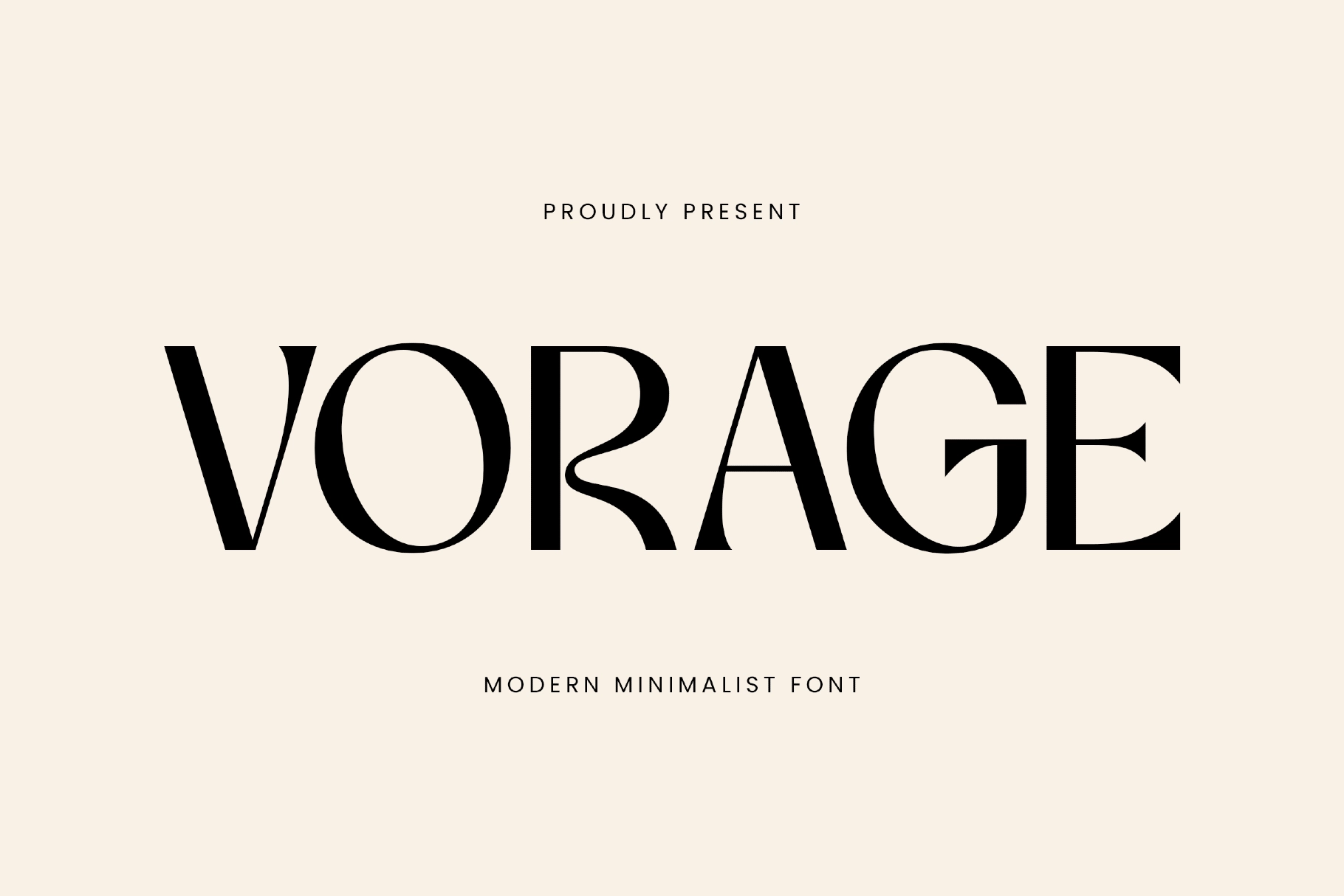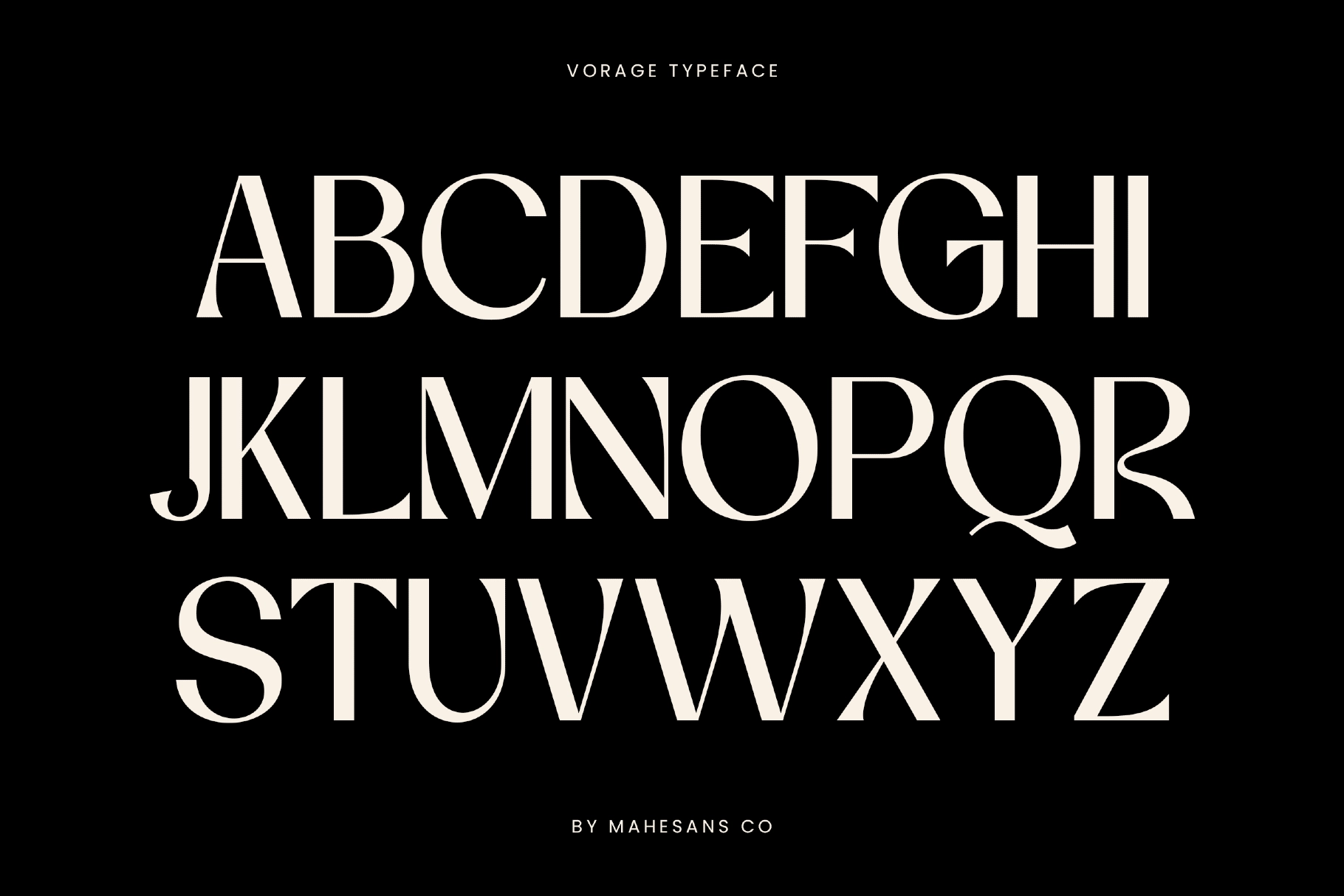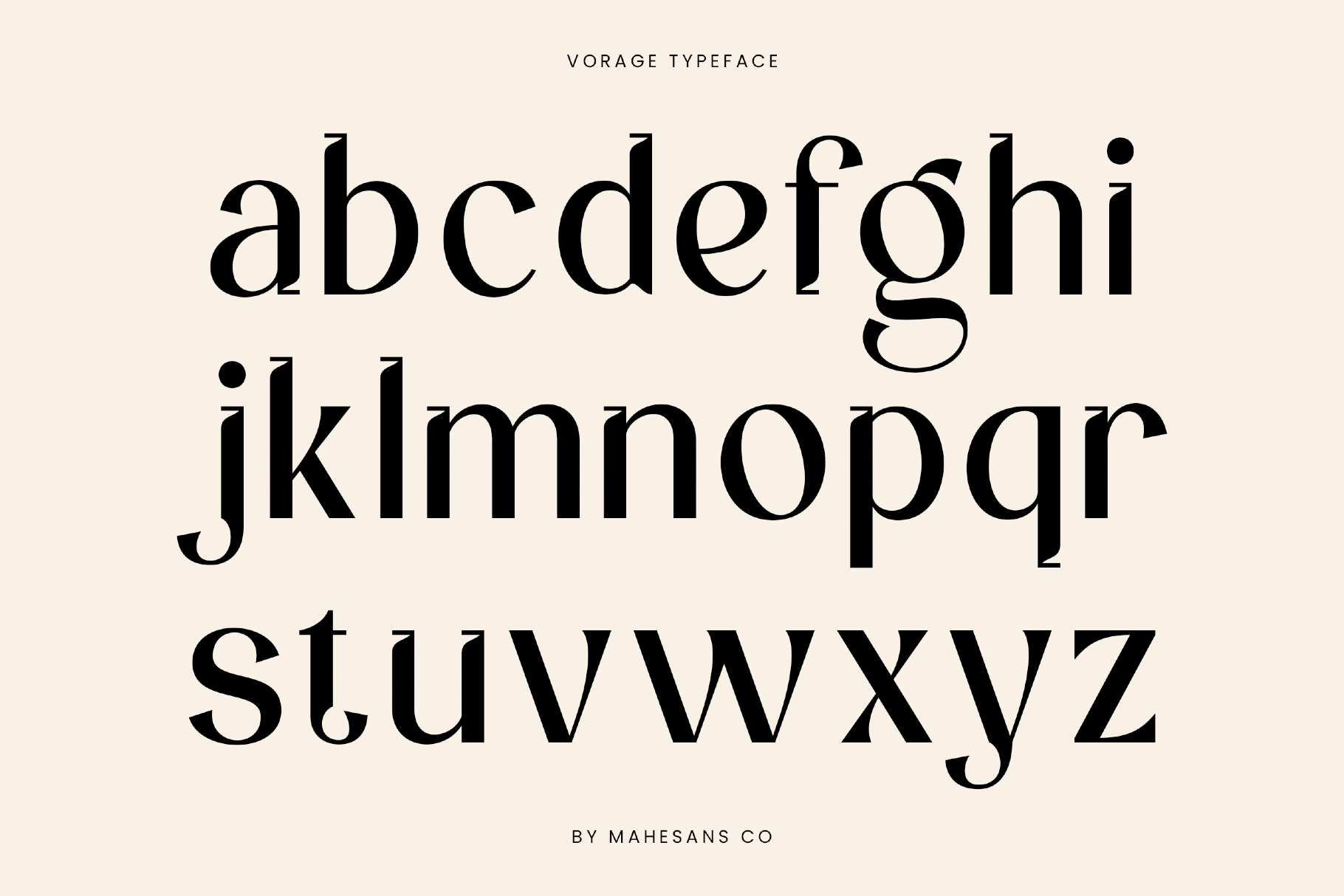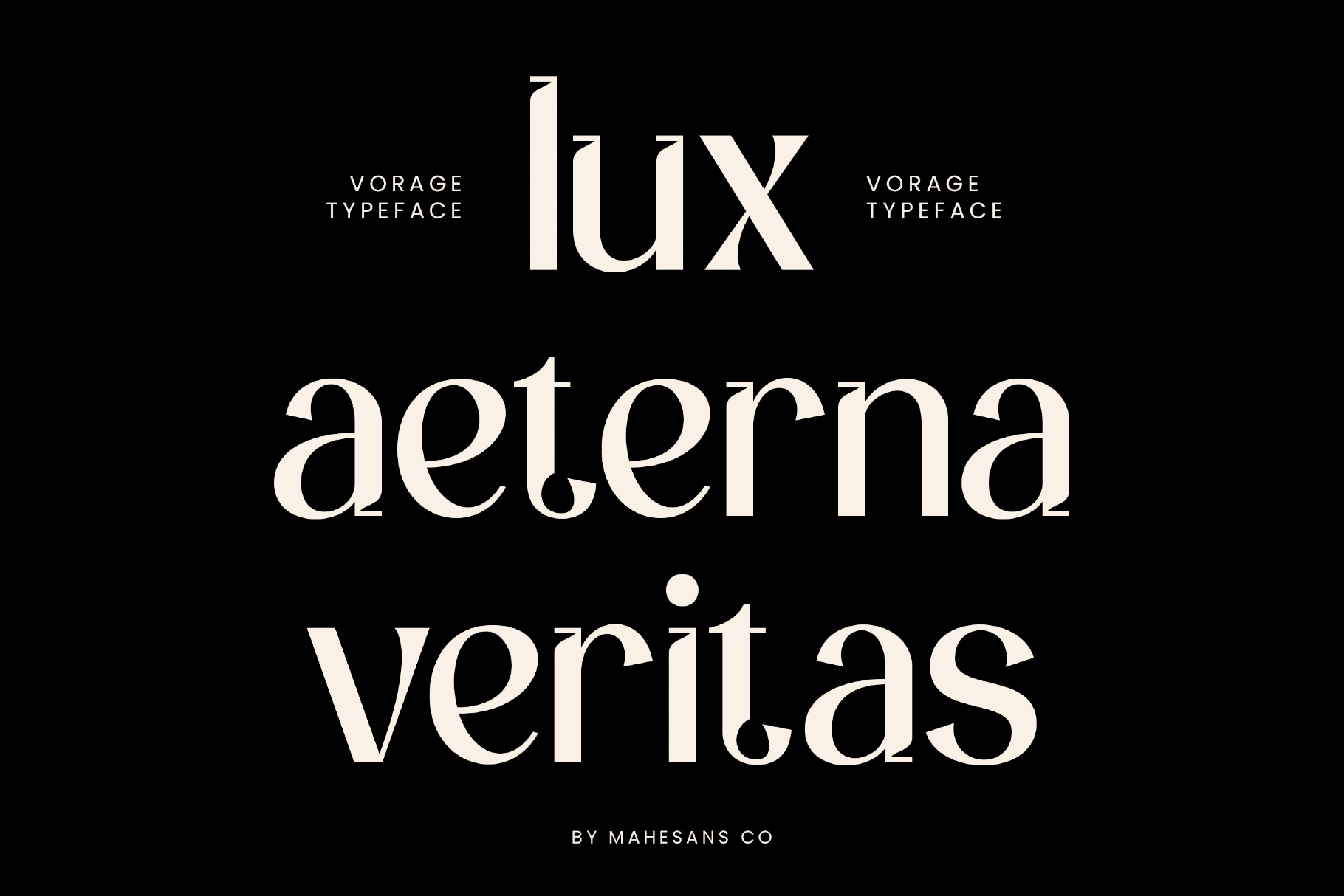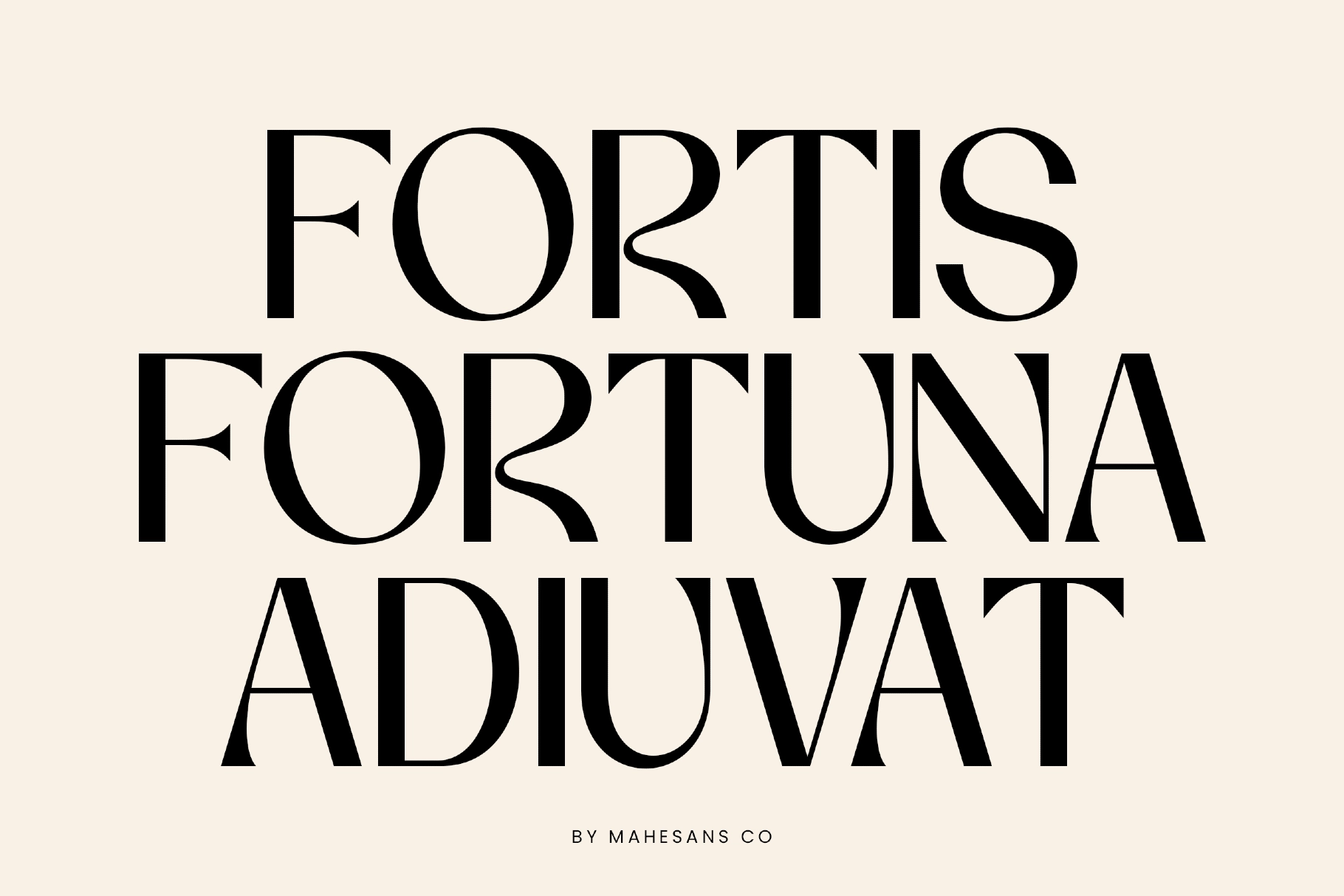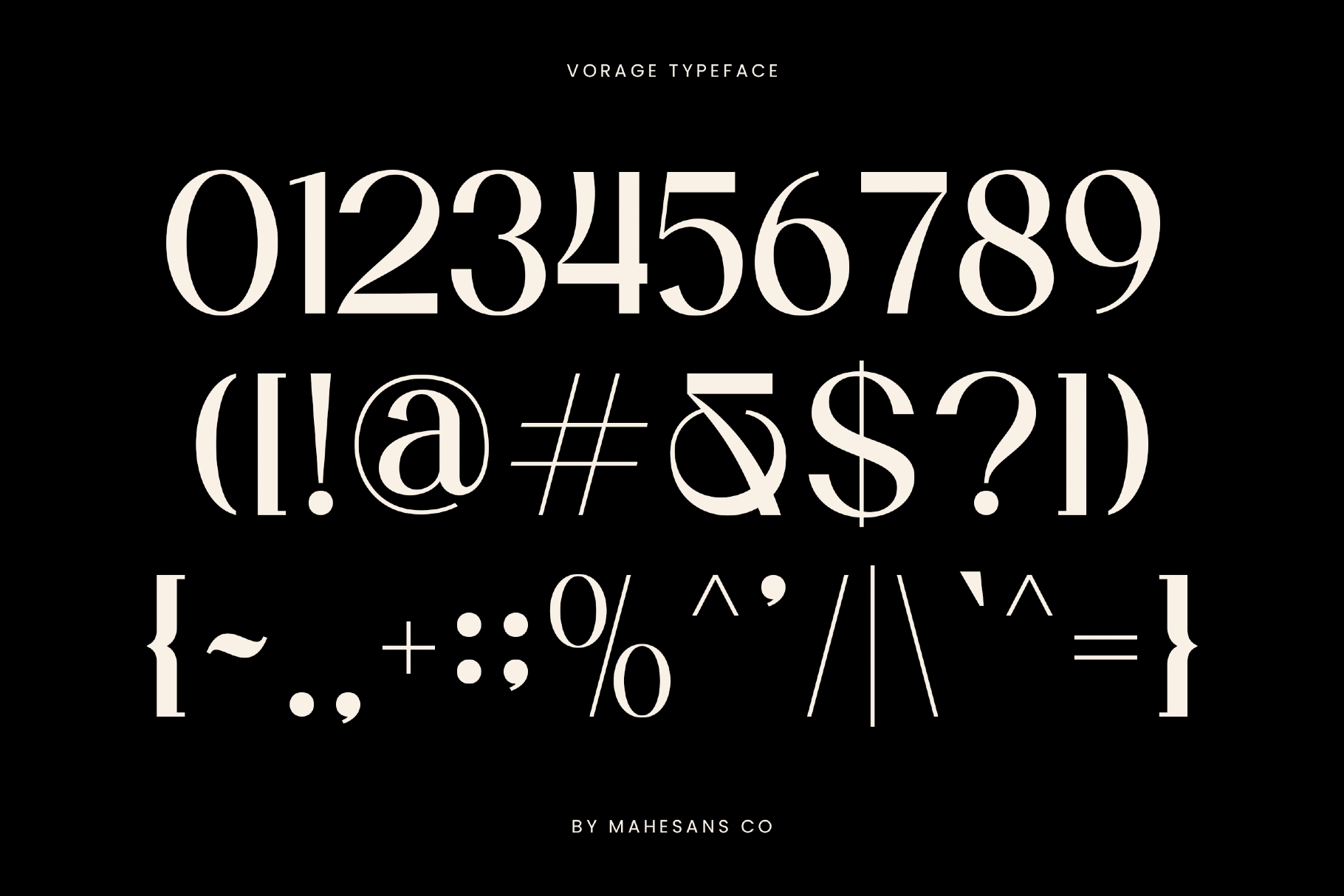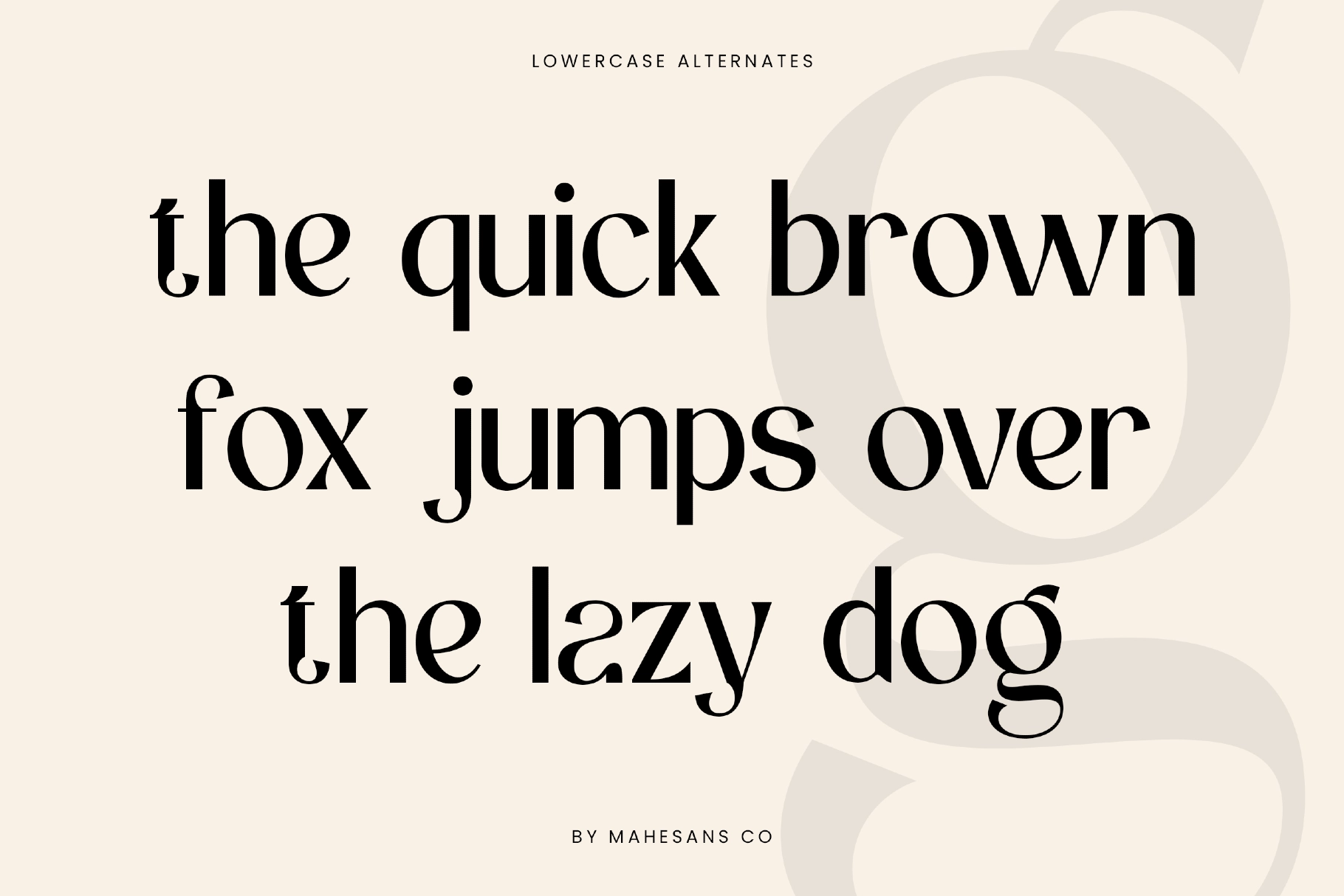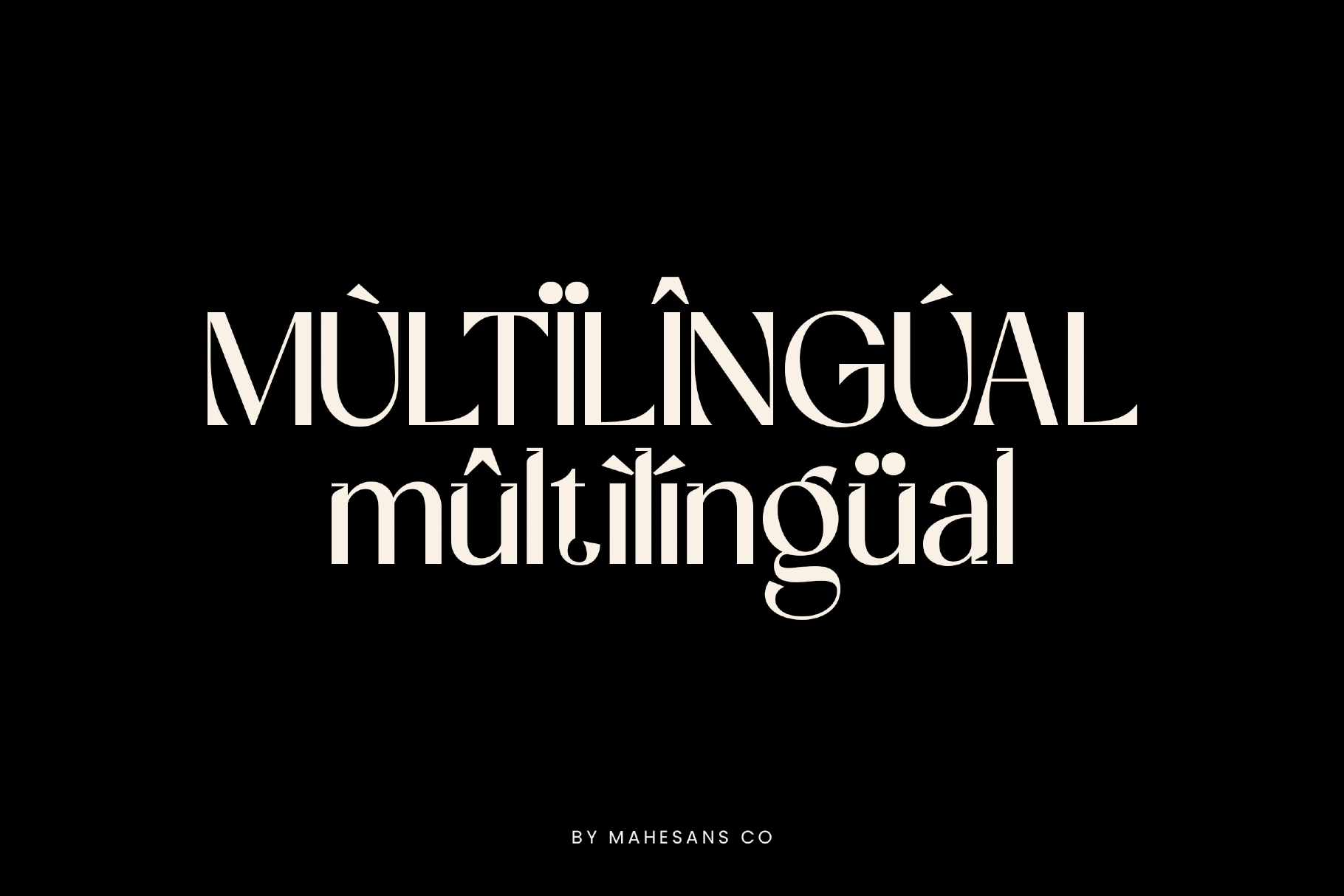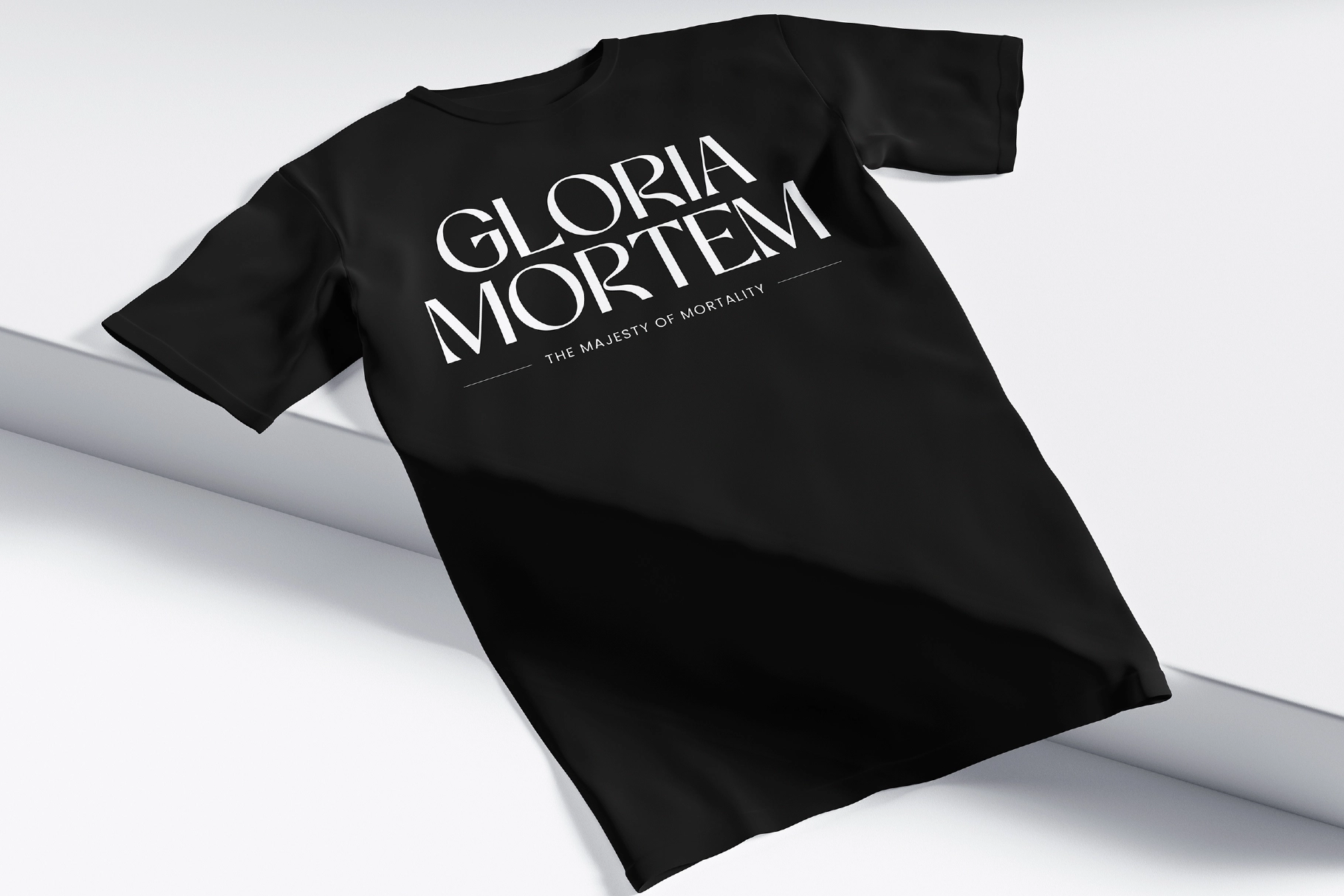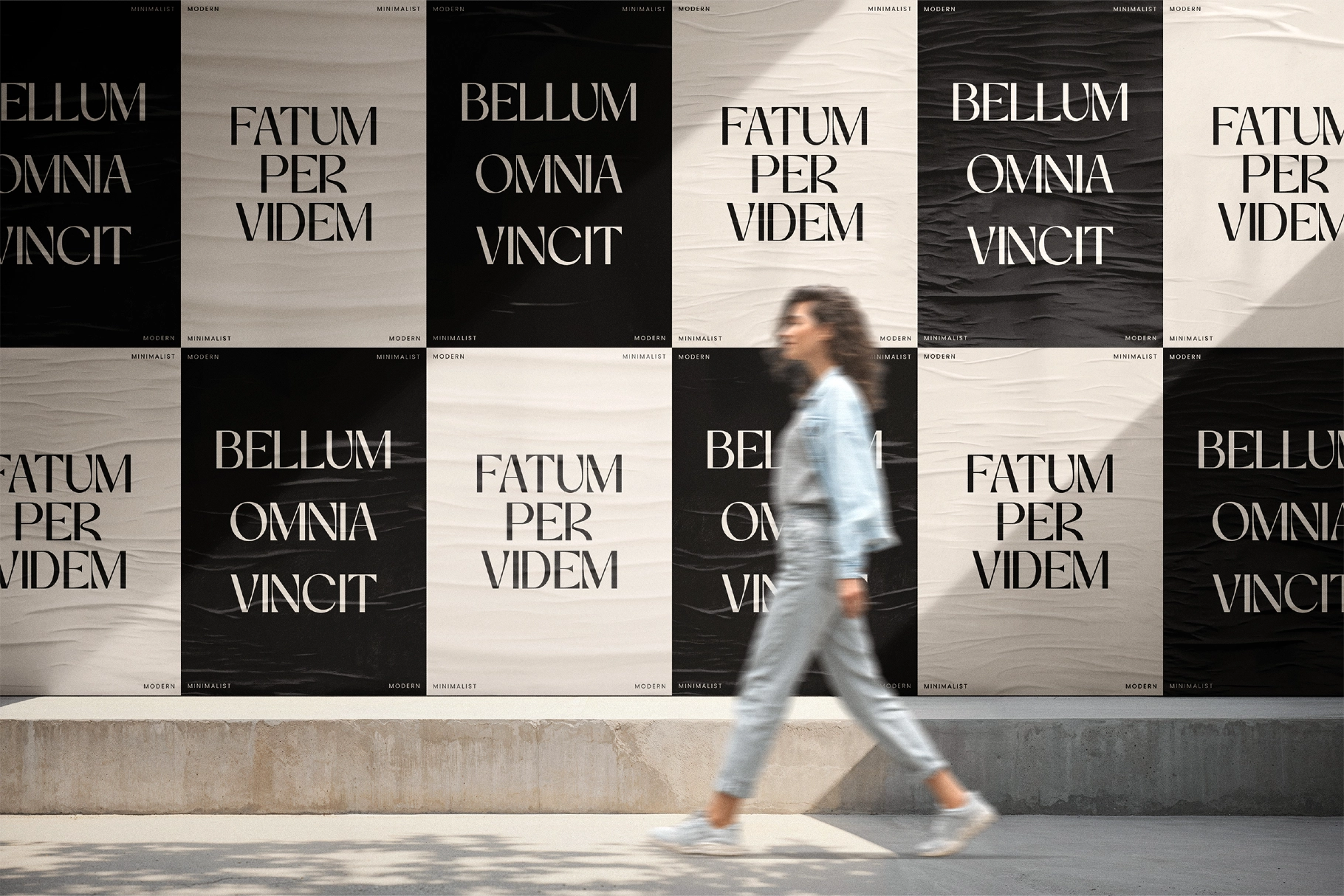
Vorage – Elegant Luxury Serif Font
Vorage, Elegant Luxury Serif Font draws on high-fashion editorial typography and Didone-era elegance, with pronounced contrast and sculpted serifs that echo luxury magazine mastheads and classical print traditions. It suits branding, logos, editorial layouts, packaging, invitations, and social media visuals, especially in projects that seek a refined, high-end presence with a poised, expressive tone.
• Uppercase & lowercase letters
• Numerals & punctuation
• Stylistic alternates
• Ligatures
• Smooth high-contrast serif design